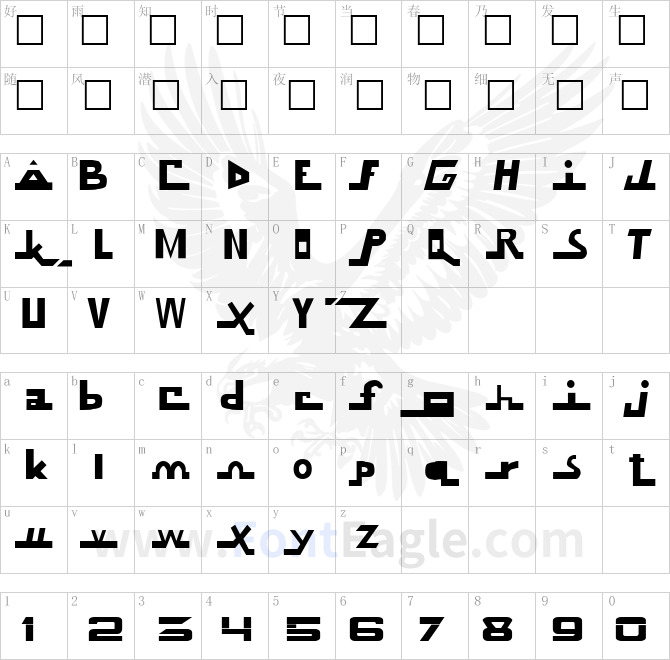
- Font Copyright:Created by Jim Sorenson. Version .90 finished on 6/3/97. Based on the Zic Zak corporation from Max Headroom, the font takes its name from the company logo.